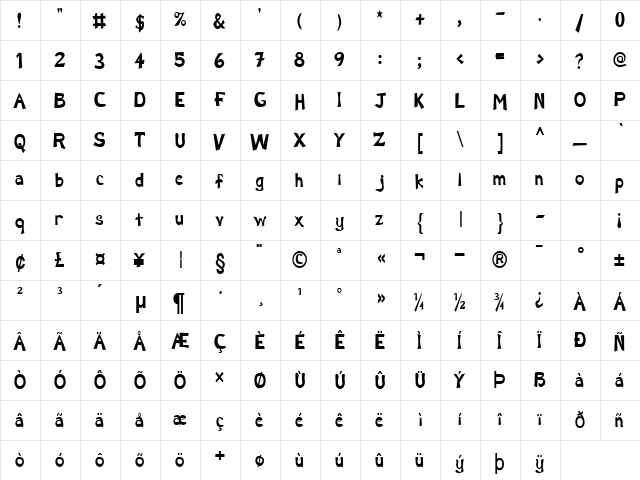
Sarah-Condensed Normal
Design Context for Sarah-Condensed Typeface
Sarah-Condensed takes a measured approach to typography — its balanced proportions and neutral character make it a reliable workhorse for both digital and print work. The condensed width makes it efficient for tight spaces without sacrificing legibility.